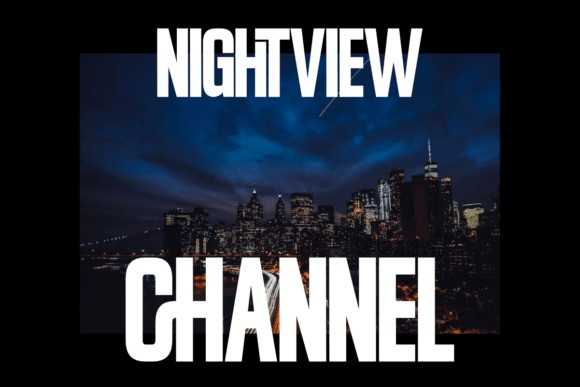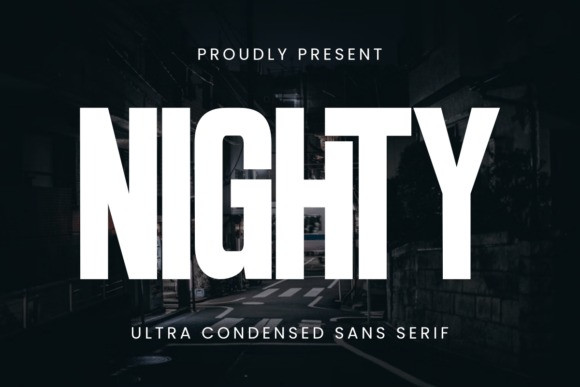
Nighty Font
Nighty Font is an ultra condensed sans serif font that is perfect for craft projects, t-shirt design, and print-on-demand. Its tall and bold letters make it an ideal choice for Cricut and Silhouette cutting machines, vinyl projects, stickers, mugs, sublimation prints, and DIY crafts. This font gives your design a strong and modern look, making it great for t-shirt slogans, quotes, posters, logos, and merchandise.
If you are a crafter, DIY enthusiast, or t-shirt designer, Nighty will be your go-to display font for creating impactful designs that stand out both in print and digital products.